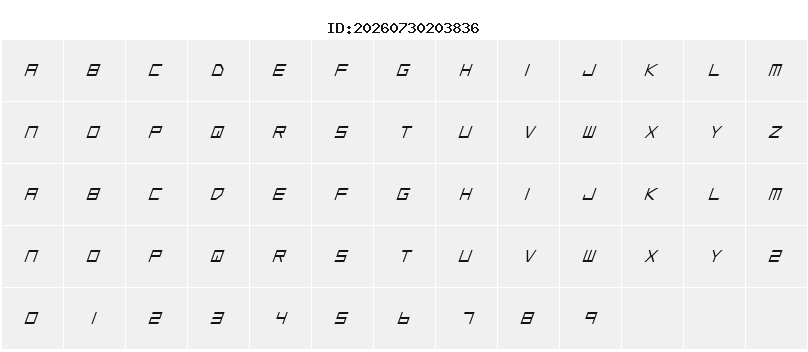
Low Gun Screen Condensed Italic Preview
• Font Name: Low Gun Screen Condensed Italic
• Font Style: Condensed Italic
• Full Font Name: Low Gun Screen Condensed Italic
About Low Gun Screen Condensed Italic.ttf
Low Gun Screen Condensed Italic.ttf is a modern, elegant sans-serif font designed for ultimate readability and visual harmony. Perfect for branding, headlines, web design, and print materials.